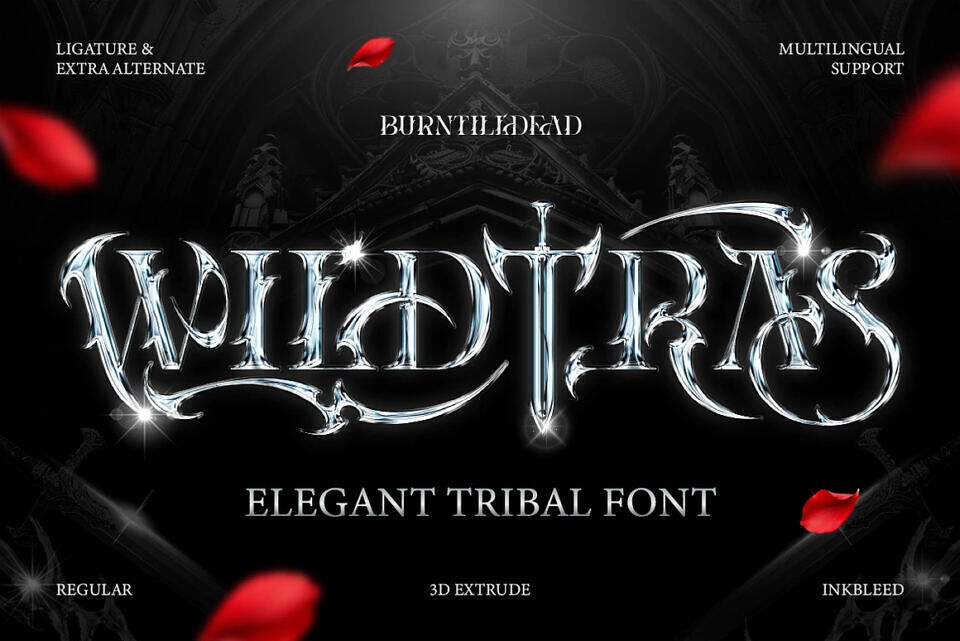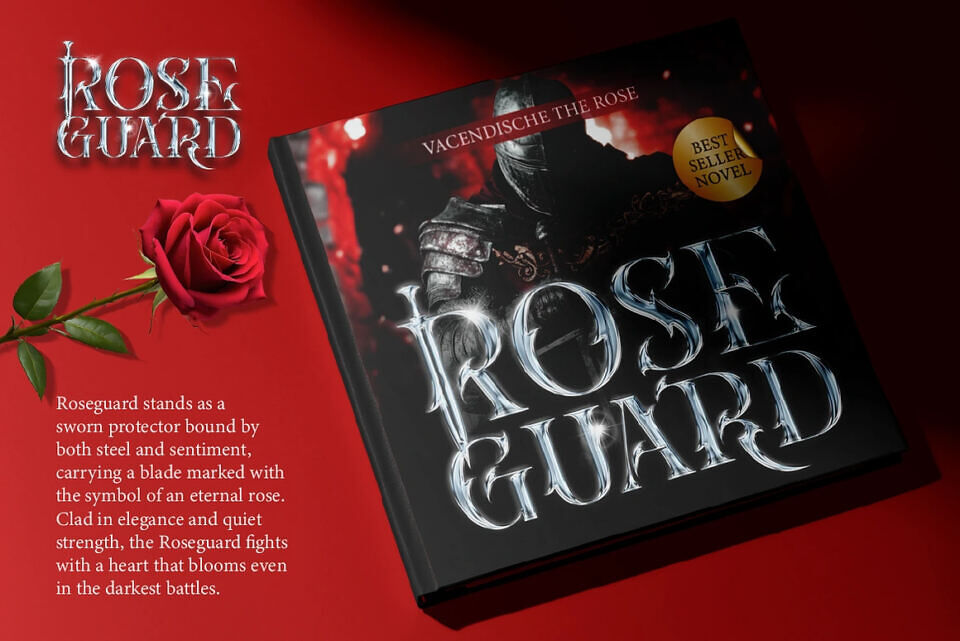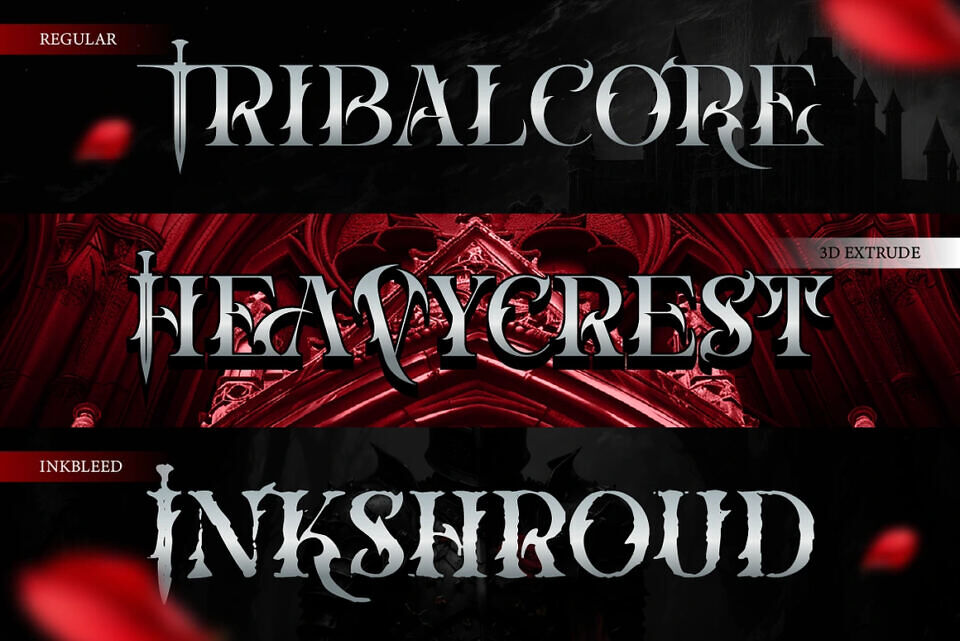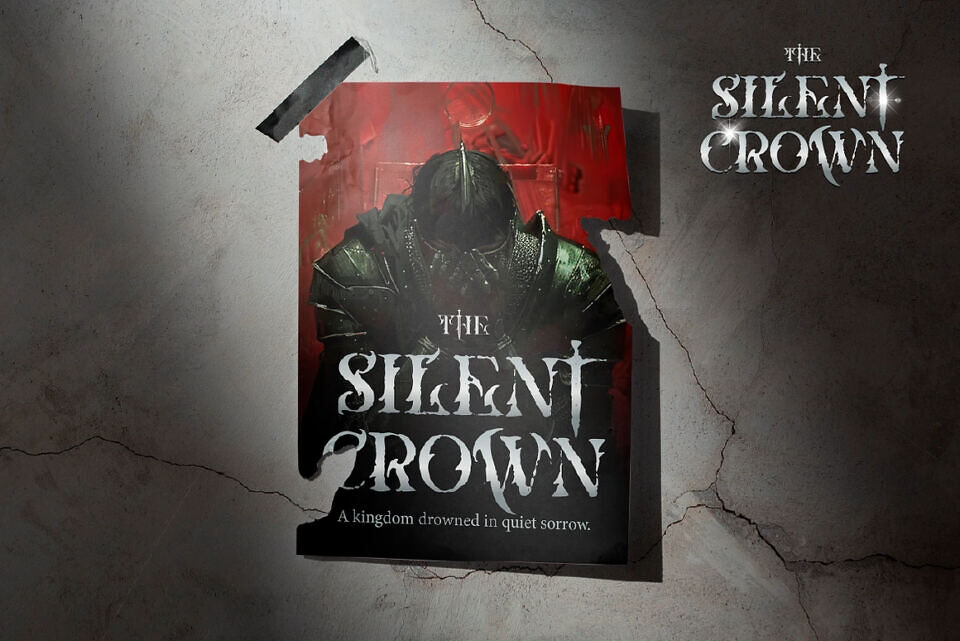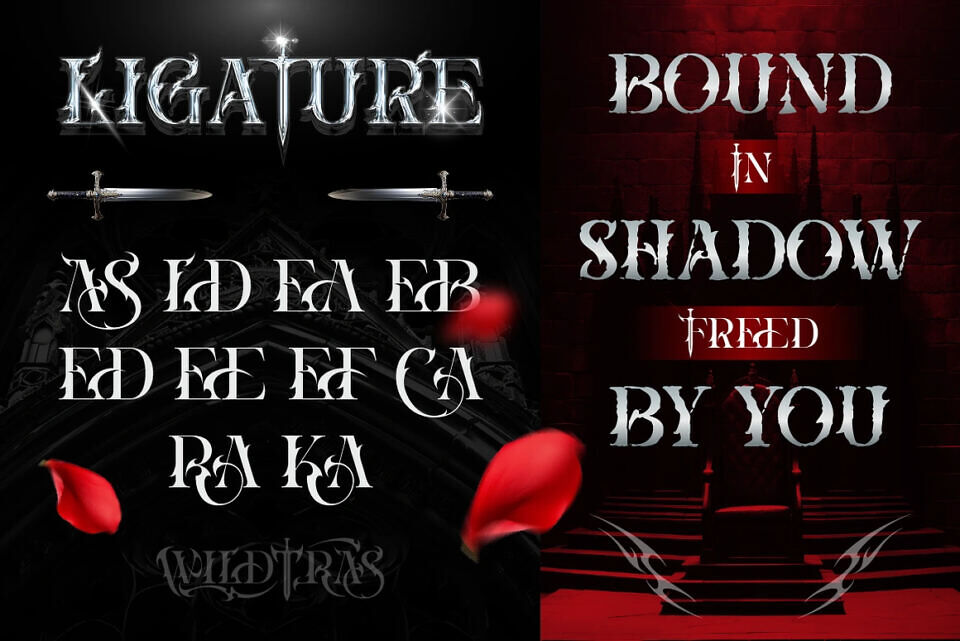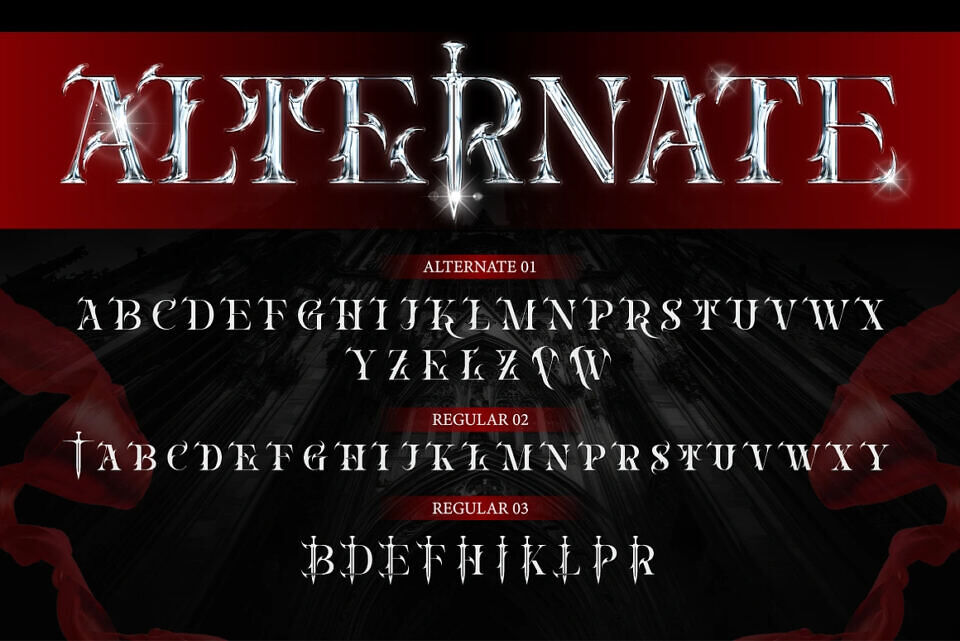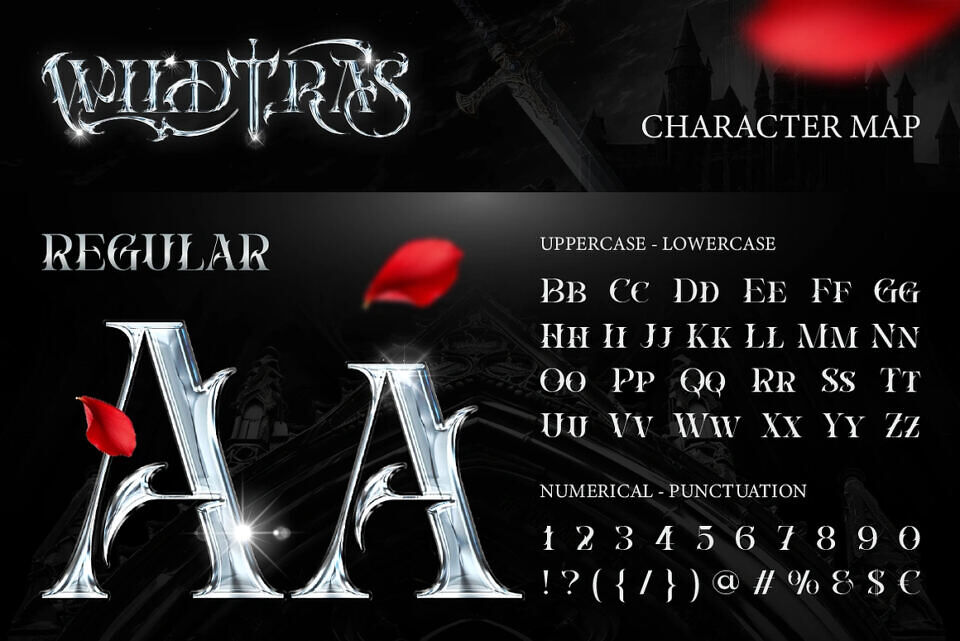
Wildtras Font
Wildtras is an elegant tribal display font with a dark and cinematic feel. It combines sharp tribal shapes with refined serif details, creating a strong and dramatic character. This font includes multiple styles such as Regular, 3D Extrude, and Inkbleed, along with alternates, ligatures, and multilingual support.
Easy to use and flexible for many design needs. Perfect for logos, game titles, posters, book covers, branding, and fantasy-themed designs.